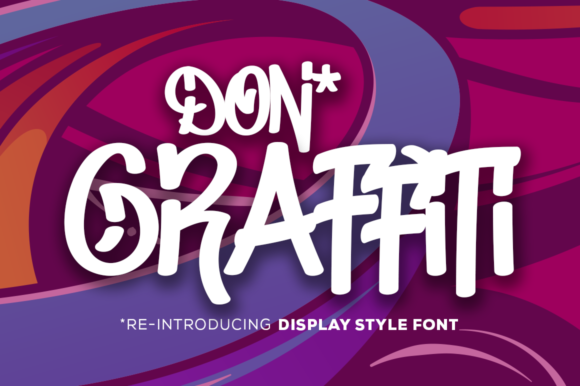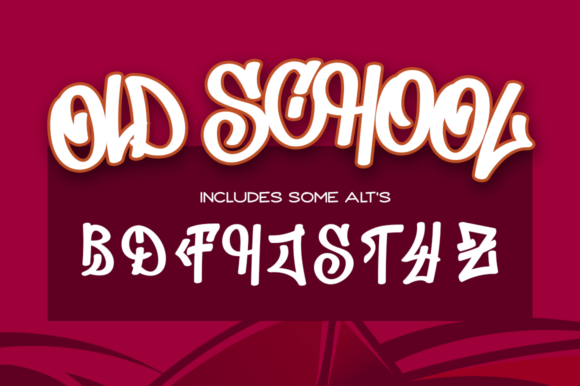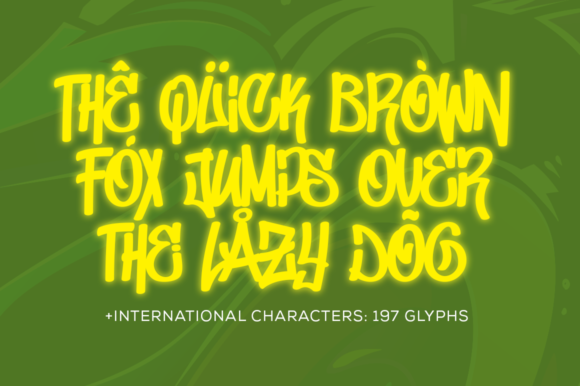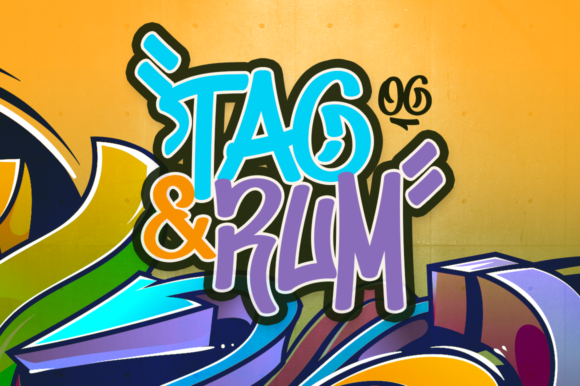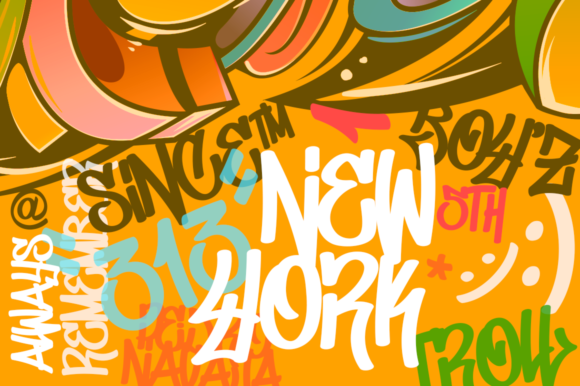
Don Graffiti Font
About Don Graffiti Font
Don Graffiti is a an amazing graffiti-themed font with a bold twist. It will add an urban feel to any design project.